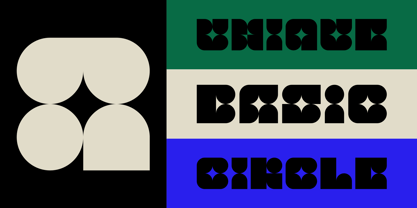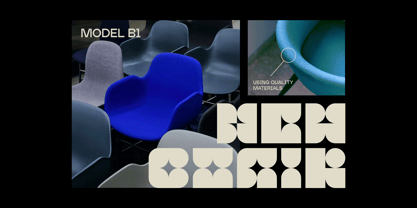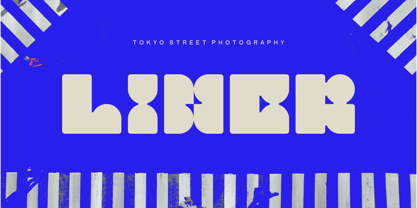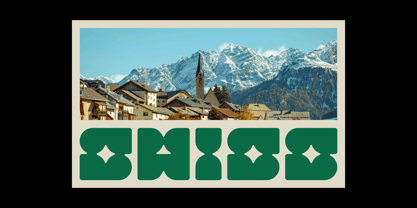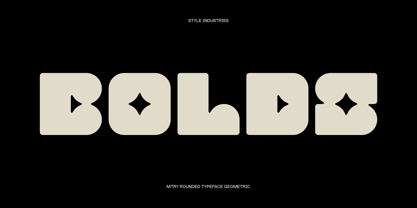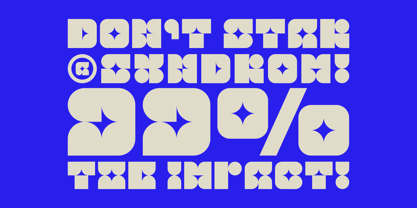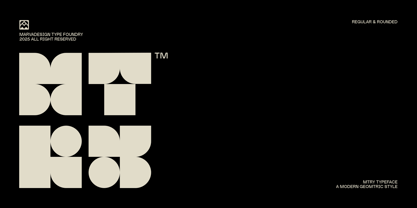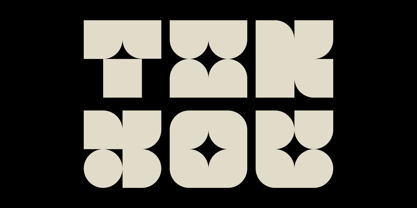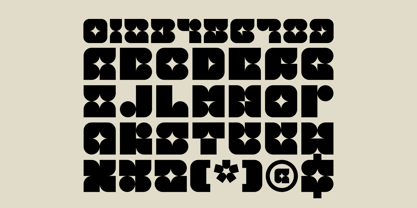
Mtry
by Marvadesign
Introducing MTRY a modern experimental geometric typeface. The letter design is very bold, blocky, and uses distinctive visual elements such as circular curves and star-shaped cuts on the inside of the letters, creating a unique and futuristic look. MTRY carries a rounded geometric style, combining basic shapes such as circles, squares, and triangles with a very decorative and artistic approach. This typeface is suitable for creative branding purposes, poster designs, or titles that want to stand out and stand out. The overall look of this font is strong, playful, and contemporary, making it ideal for design projects that want to be bold and unconventional.